Nowadays, branding operates in a visually competitive world; therefore, brand look plays a crucial role in appealing to customers. In the context of burger stall branding, we need a strong design aspect, starting from colors to styles and appropriate typography. Proper font selection creates a consistent impression and improves customers’ memories of the brand.
One of the most utilized typography styles for burger stall branding is retro script fonts. Their dynamic character enriched with a classic touch evokes a warm, playful, and memorable impression. As a result, they are effective at highlighting the brand’s personality. The implementation of these fonts can enhance the visual appeal of logos, signage, or other promotional materials.
Through this article, you will find the best retro script fonts for burger stall branding along with their usage considerations. Let’s create a strong, interesting, and relevant visual identity using these retro script fonts.
You can feel the classic nuance in each of the letters of Vintage Signature. It is one of the retro script fonts that appears flowy and expressive. The smooth swashes and natural curve details resemble genuine handwriting, presenting a personal yet classic impression. The letter structure is balanced between a decorative expression and artistic touch, creating an elegant appearance perfect for burger stalls without being too excessive. Those traits make Vintage Signature effective at strengthening the visual identity and creating a warm and memorable impression.
In typography with a retro script font theme, this style excels in creating a warm, nostalgic atmosphere and strengthening the brand’s visual identity. The dynamic lines make the text appear more characterful, making it suitable for use in headlines or logos.
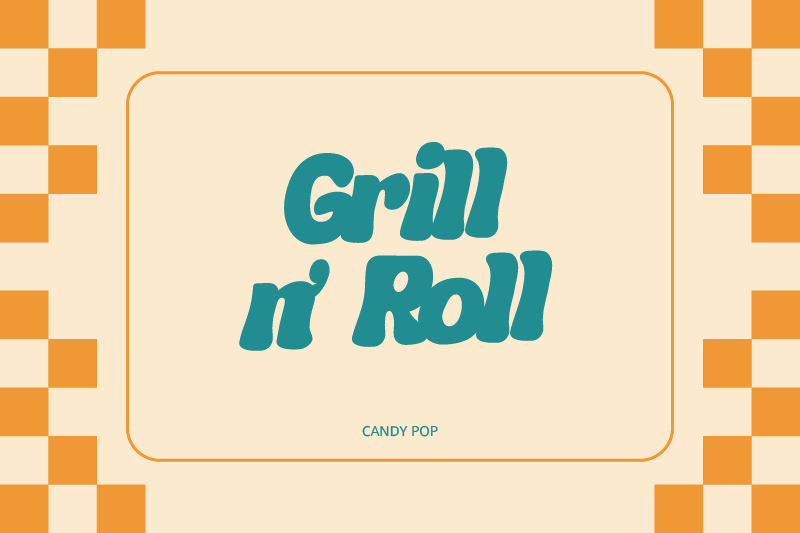
Next, we have Candy Pop. This font offers bold, rounded, and energetic letterforms, making it perfect to evoke a playful retro sense in a design. Candy Pop has smooth letter characters with solid proportions, creating a friendly, strong visual look and making text recognizable even from afar.
As one of the most popular retro script fonts, this style stands out for its pleasant and nostalgic atmosphere, which perfectly represents old pop culture. Candy Pop is ideal for headlines, logos, and burger stall branding that demand a strong visual appeal without losing message clarity.
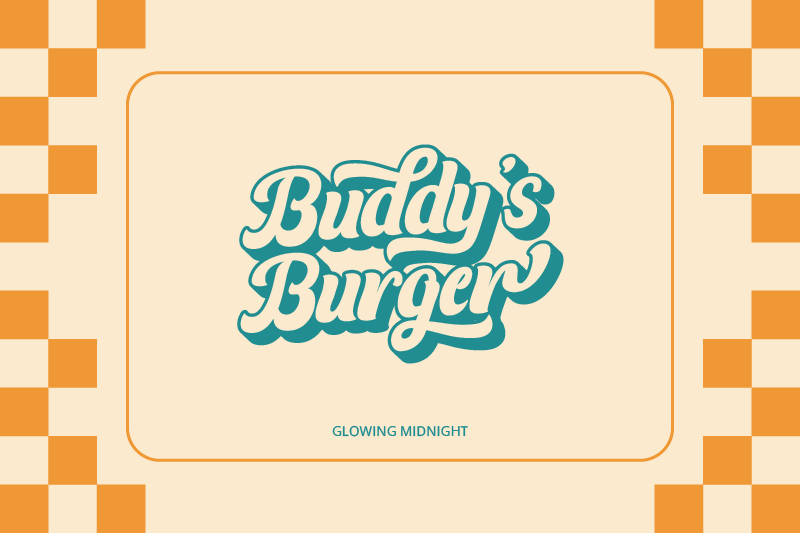
Glowing Midnight demonstrates how script typography can serve as a daring and distinctive visual focus. This font creates a depth effect through the contrast between the shape and letter solidity. As a result, texts using Glowing Midnight feel like they have dimension. The character helps build a clear visual hierarchy in the design layout, making the main element easily attract attention.
Additionally, Glowing Midnight has a flexibility that makes it adapt seamlessly across various media without losing its identity. This trait makes this font ideal for burger branding that seeks to show a daring, dynamic retro style that is memorable and visually appealing.
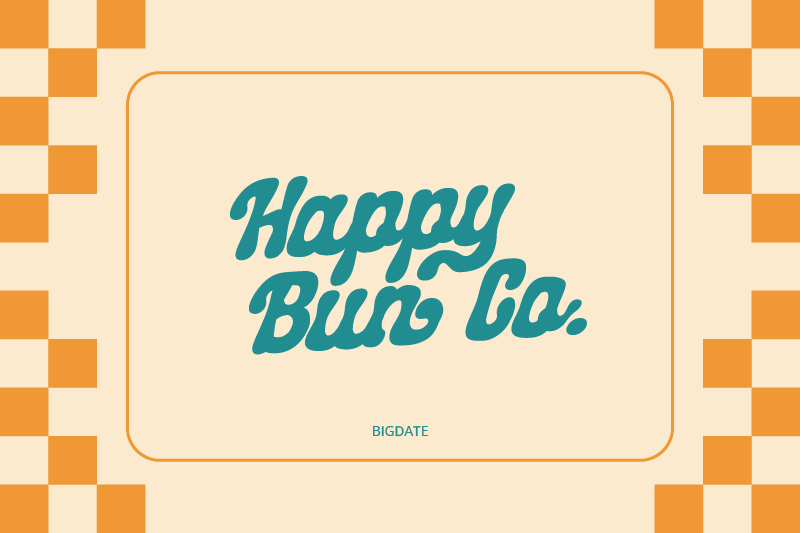
Big Date becomes an ideal choice for burger stall branding that wishes to show a striking retro look with bold and rounded letter characters. With smooth and solid letter curves, Big Date creates a friendly, energetic, and recognizable visual. Furthermore, the letter structure helps build a clear visual hierarchy when used in a logo or signage.
With its bold and unique letterforms, Big Date becomes one of the best retro script fonts that easily catches attention while maintaining great readability. The character combination makes this font ideal for burger stall branding that wants to stand out and appear communicative, consistent, and memorable.
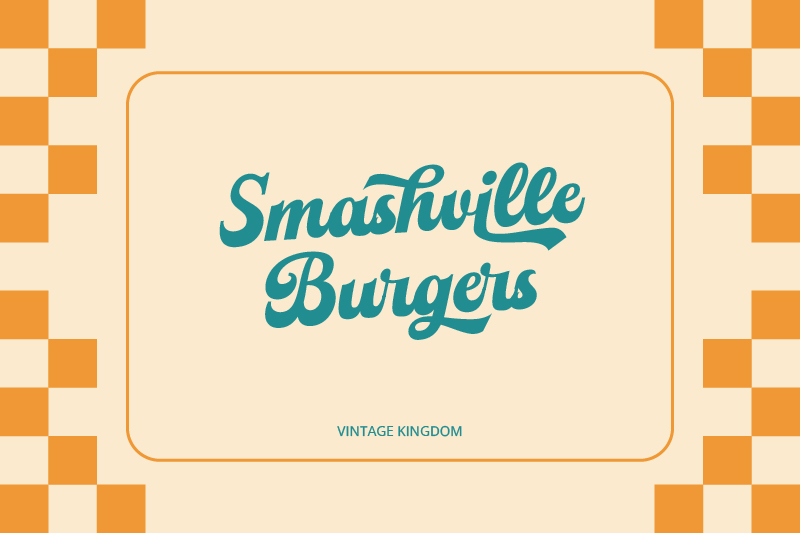
In designing burger stall branding, Vintage Kingdom will be the visual mark that creates a classy retro appearance. Among the retro script fonts on this list, this one has smooth, thick strokes and curves that nonetheless appear solid, providing a classic and lovely impression.
Moreover, the consistent swashes of Vintage Kingdom offer such a warm vintage feel, yet its letter flow ensures that the composition is still well-structured. Visually, this font provides a solid and characterized look, making it effective for use as the focal point in branding design.
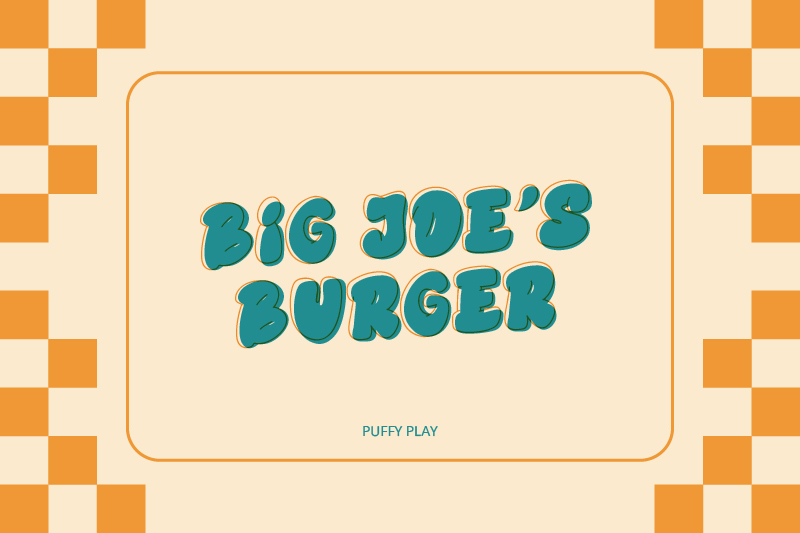
With a look that appears flowy and full of energy, Puffy Play creates a playful and characterized visual appeal. The contour of the letter is smooth with strong visual volume that offers a friendly and dynamic impression at the same time. As a result, the text appears lively and more recognizable. Its consistent letterforms also strengthen the visual character, making the overall appearance harmonious, albeit decorative and expressive.
In the context of burger stall or burger bar branding, Puffy Play is effective at building a chill situation, which is in line with the street food concept. This combination makes this font one of the best retro script fonts for brands seeking to stand out yet look chill at the same time.
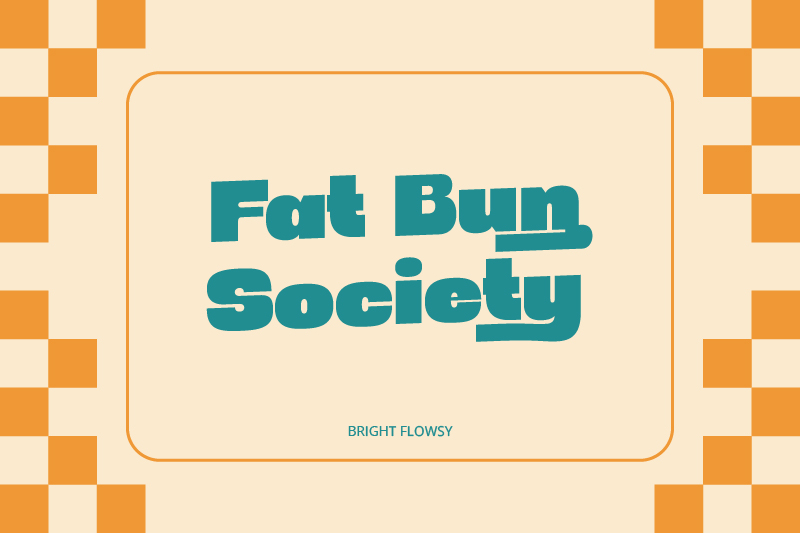
Link of font demo: Click Here
Bright Flosty creates a strong visual impression with its sturdy and structured letterform. The letter character maintains a consistent graphic rhythm, featuring detailed retro elements. Bright Flosty is both intelligible and visually appealing because of its solid letter mass and clean composition.
Furthermore, this font has a strong character that will make your burger stall branding stand out. This retro script font is useful for enhancing the brand’s character, which aims to appear modern while maintaining a retro feel.
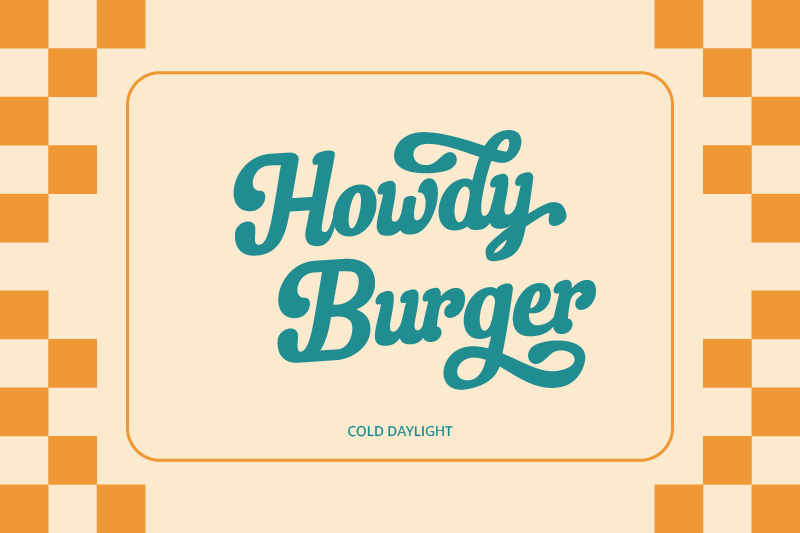
Link of font demo: Click Here
The next font in this list of the best retro script fonts is Cold Daylight. This font has a classic elegance with its smooth, dynamic curved letterforms, creating lively line flows that stay controlled. Moreover, the letter proportions are balanced with a strong visual structure. As a result, Cold Daylight appears elegant without losing any of its retro vibe.
Cold Daylight is an effective font for building a friendly, energetic, and classy visual identity. The rhythm of the letters is dynamic, strengthening the visual appeal and making it ideal for burger stall branding.
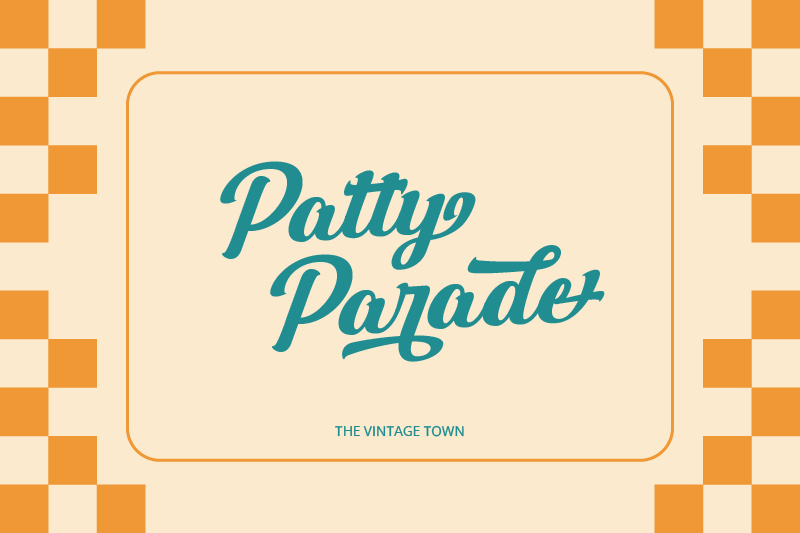
Link of font demo: Click Here
If a brand burger needs a classic yet interesting identity, The Vintage Town may be the most suitable choice. Each of the letters is created in thick strokes with smooth transitions, resulting in a visual flow that is well-controlled. Additionally, the curves and letter ends are designed with measured decorative accents to evoke a strong and beautiful retro nuance. This visual character makes The Vintage Town effective as a font for burger stall branding, as it can strengthen visual appeal and build a memorable identity at the same time.
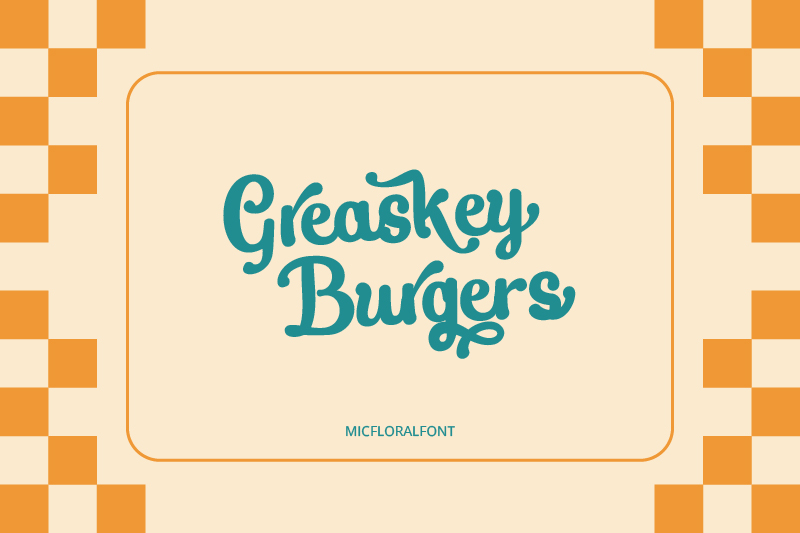
Link of font demo: Click Here
Micfloral presents an expressive script character with dynamic line flows that are full of movement, creating a lively and energetic visual impression. The letter structure combines dynamic curves, balanced proportion, and decorative swash variations, creating an overall appealing look. This character helps build identity for burger stall or burger bar branding that is both friendly and easily recognizable. Because of that, Micfloral is effective in creating an iconic and communicative burger brand in various visual promotion media.
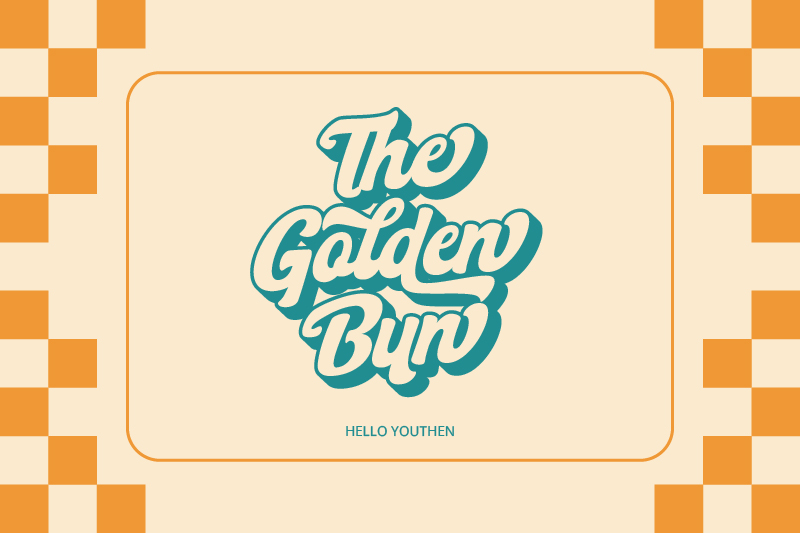
Link of font demo: Click Here
As one of the best retro script fonts, Hello Youthen successfully enlivens retro nuance in every design that uses it, including burger stall branding. Hello Youthen presents thick, rounded, and connected letterforms with dynamic visual flow. Each of the curves is designed with clear stroke contrasts, ensuring the text appears full, lively, and readable. These traits make this script font one of the most effective typographies for bringing out an energetic, communicative retro look for your branding needs.
Link of font demo: Click Here
Vintage Feeling is the visual aspect that creates a warm and inviting retro vibe in a design. This font serves as typography and provides an excellent visual experience, ensuring that the burger branding identity stands out. The solid form and rhythm of the letters provide an artistic appearance, particularly with the decorative look in the middle of the letter. When using retro script fonts in burger stall branding, consider how to create great visual storytelling that appeals visually and emotionally, and Vintage Feeling can help you do just that.
Link of font demo: Click Here
Imagine a burger stall identity that immediately looks appealing at first glance. Well, you can get that impression if you use Big Flask. This font presents an expressive retro script character through bold letters with flexible and energetic organic curves. The rhythm of its shapes creates a sense of movement, making the text appear dynamic, while the unique curve details add a warm yet playful vintage touch. Big Flask is capable of being a strong focal point and helps the brand appear bold, characterful, and memorable, making it very suitable for burger stall branding.
Link of font demo: Click Here
When burger stalls want to look iconic, then maybe they need to use Light Metro. This font has a strong retro script vibe. It stands out due to its bold geometric letterforms that exude a sense of strength and solidness. Each character is created with wide curves and bold stroke transitions, ensuring its look to feel solid yet flowy at the same time. Light Metro is one of the best retro script fonts to solidify visual focus without losing its classic nuance.
Link of font demo: Click Here
Last but not least, we have Salt Debris. Salt Debris emphasizes that retro script fonts can be a key element in creating a strong yet appealing brand for a burger stall. This font has rounded letter shapes with smooth curved edges that create a playful visual rhythm while still standing out. Salt Debris is the right choice to enhance the visual appeal of the brand, making it iconic in the world of street food cuisine.
Choosing retro script fonts in burger stall or burger bar branding is a good step to ensure a strong, recognizable, and characterized visual identity. Each of the fonts above presents different retro nuances, starting from classic and playful to expressive and full of visual appeal.
That is why you should use the best retro script fonts to accurately portray your brand’s character. It is an essential element for improving your burger stall’s image. Begin by researching all of the font options we’ve discussed and incorporating them into your branding plan to build a strong, communicative, and memorable visual identity.